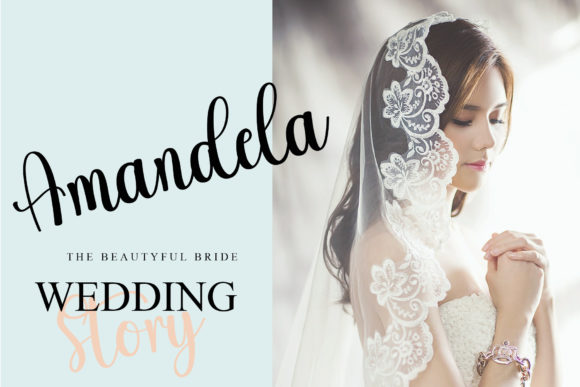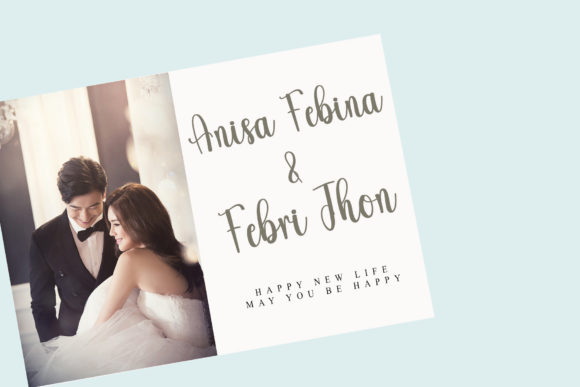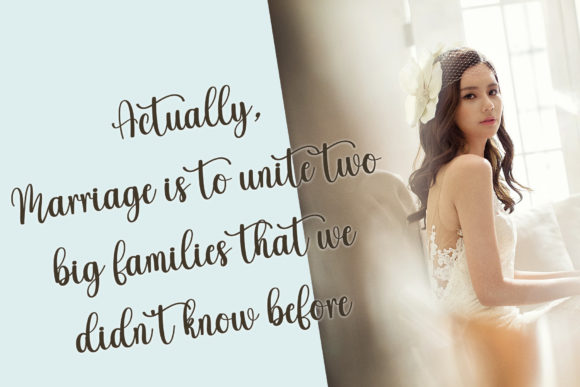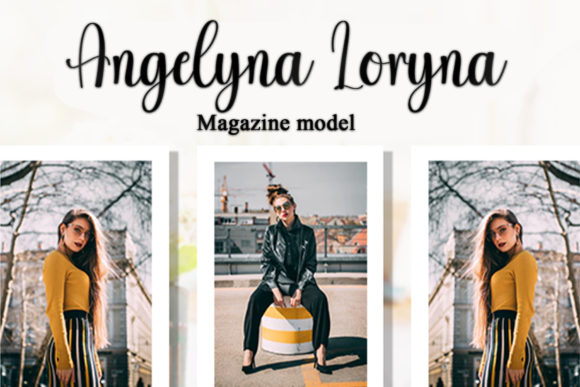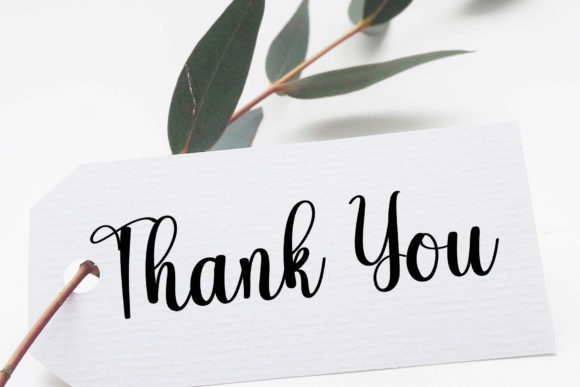
Introducing Ghosting Font: The Elegant and Charming Handwritten Font
Are you a designer or crafter looking for a font that exudes elegance and charm? Look no further than Ghosting Font! This beautiful handwritten font is perfect for adding a touch of sophistication to any design project. In this article, we’ll take a closer look at Ghosting Font and explore its many uses, from wedding invitations to logos and business cards.
What is Ghosting Font?
Ghosting Font is a stunning handwritten font that feels equally charming and elegant. Its delicate lines and curves make it perfect for designs that require a personal and intimate touch. Whether you’re creating wedding invitations, thank you cards, or greeting cards, Ghosting Font is sure to impress.
Uses of Ghosting Font
Ghosting Font is incredibly versatile and can be used in a variety of design projects. Here are some of the most popular uses of this beautiful font:
- Wedding Invitations: Add a touch of elegance to your wedding invitations with Ghosting Font. Its delicate lines and curves make it perfect for formal and informal wedding designs.
- Thank You Cards: Express your gratitude with beautiful thank you cards featuring Ghosting Font. This font is sure to make your cards stand out.
- Quotes: Add a touch of sophistication to your quotes with Ghosting Font. This font is perfect for inspirational quotes, love quotes, and more.
- Greeting Cards: Create stunning greeting cards for any occasion with Ghosting Font. From birthdays to holidays, this font is sure to impress.
- Logos: Use Ghosting Font to create a beautiful and elegant logo for your business. This font is perfect for businesses that want to convey a sense of sophistication and style.
- Business Cards: Add a touch of elegance to your business cards with Ghosting Font. This font is sure to make your business cards stand out.
Why Choose Ghosting Font?
There are many reasons why Ghosting Font is a popular choice among designers and crafters. Here are just a few:
- Elegant and Charming: Ghosting Font feels equally charming and elegant, making it perfect for designs that require a personal and intimate touch.
- Versatile: Ghosting Font can be used in a variety of design projects, from wedding invitations to logos and business cards.
- Easy to Read: Ghosting Font is easy to read, even in small sizes, making it perfect for designs that require a lot of text.
- Unique: Ghosting Font is a unique and distinctive font that will set your designs apart from the crowd.
Tips for Using Ghosting Font
Here are a few tips for using Ghosting Font in your design projects:
- Pair with Other Fonts: Ghosting Font pairs well with other fonts, such as sans-serif fonts and script fonts. Experiment with different font combinations to find the perfect look for your design.
- Use in Combination with Images: Ghosting Font looks stunning when used in combination with images. Try pairing it with watercolor illustrations or photographs for a beautiful and unique design.
- Experiment with Colors: Ghosting Font looks great in a variety of colors, from soft pastels to bold and bright colors. Experiment with different colors to find the perfect look for your design.
Ghosting Font is a beautiful and elegant handwritten font that is perfect for designers and crafters. Its delicate lines and curves make it perfect for designs that require a personal and intimate touch. With its versatility, ease of use, and unique style, Ghosting Font is sure to become a favorite among designers and crafters. Whether you’re creating wedding invitations, thank you cards, or logos and business cards, Ghosting Font is sure to impress.